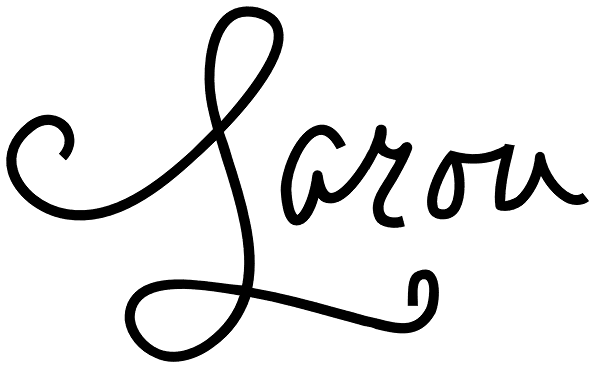
Larou
Larou was created to be original and fun, imperfect and quirky. Letters are not uniformly sized... they are created such that the final product is unexpected and interesting. Larou includes alternates and ligatures - to assist with readability and...